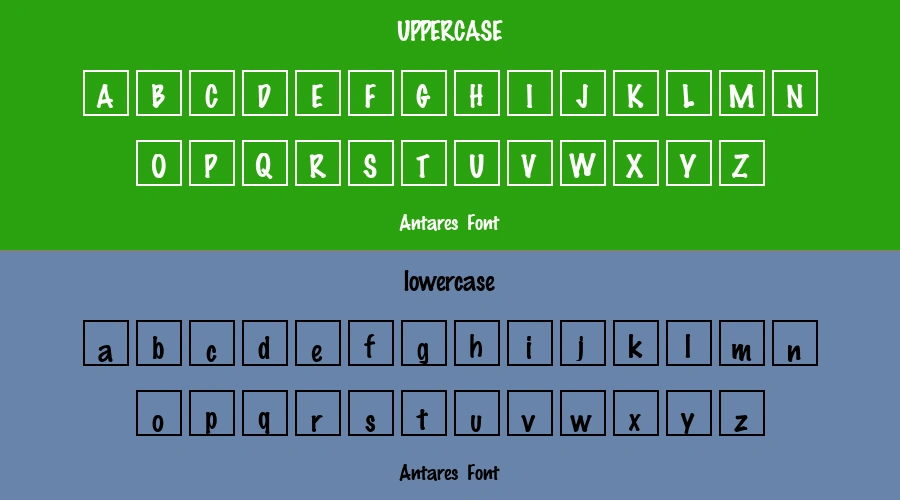
About Antares Font
Antares Font stands out for its distinctive combination of elegant proportions and functionality. Ideal for logo design, it provides the clarity and enduring appeal that professional projects demand. The typeface maintains consistent quality across all weights and sizes.
Key features include refined distinctive details and practical standard ligatures, enhancing typographic expression. In creative titles applications, Antares Font demonstrates exceptional readability. The ear formation and brand personality contribute to its distinctive character and professional appeal.